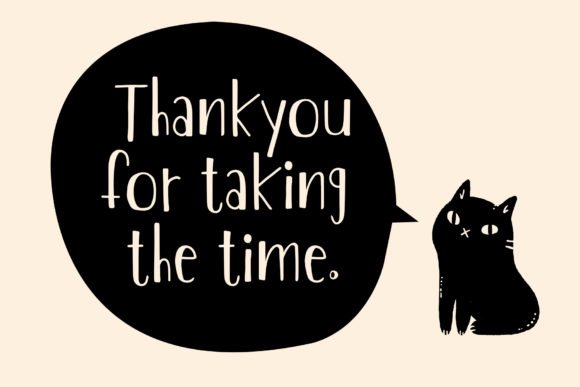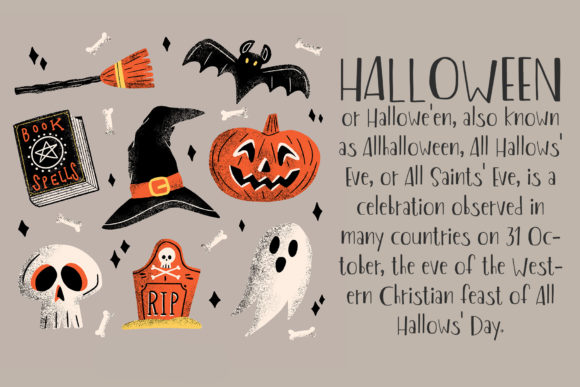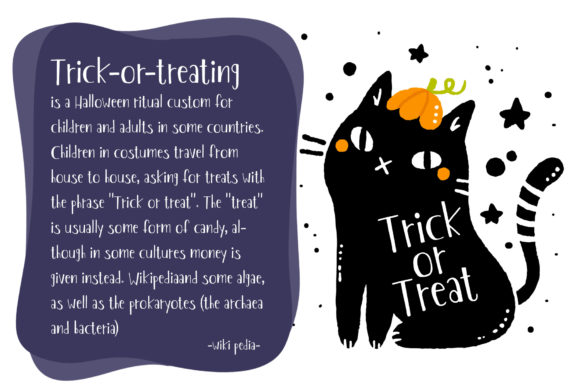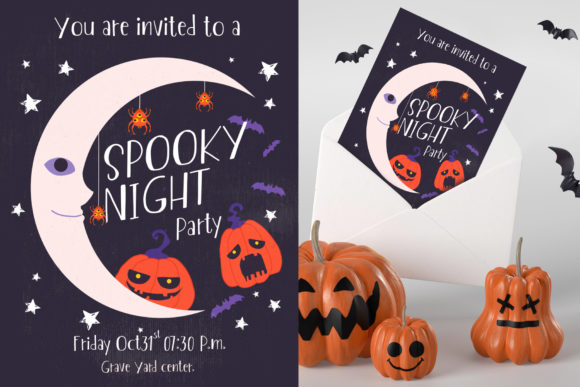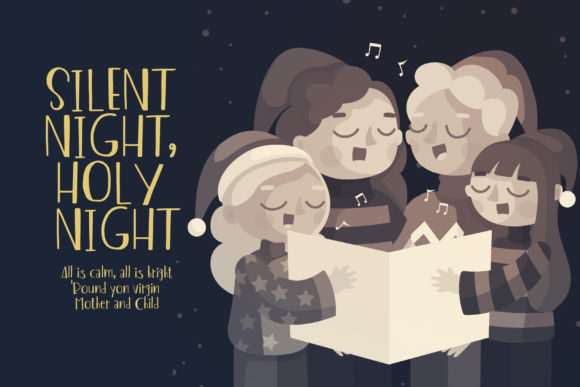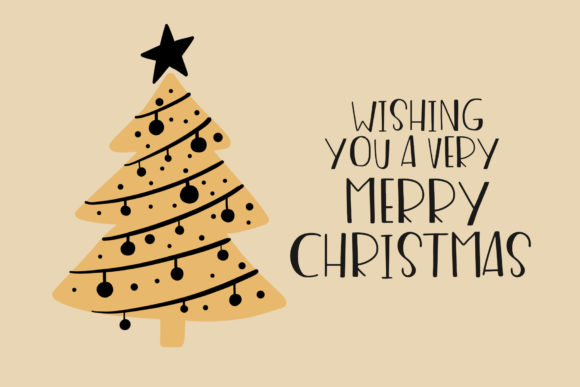
About The Chaplin Font
The Chaplin is a simple and neat handwritten font that boasts incredible versatility, making it a delightful choice for a wide range of design projects. Here are some features that make The Chaplin a standout font:
Clean and Neat Design: The font’s clean and tidy appearance gives it a polished and refined look. Its precise letterforms and smooth lines create a sense of order and elegance, making it perfect for projects where clarity is essential.
Handwritten Feel: The Chaplin retains the charm of handwritten lettering while maintaining a well-organized structure. This blend of authenticity and tidiness gives your text a friendly and approachable touch.
Versatility: The Chaplin’s adaptability makes it suitable for various design applications. Whether you’re crafting invitations, logos, social media posts, or any other creative project, The Chaplin can effortlessly complement your ideas.
Spectacular Designs: Despite its simplicity, The Chaplin has the power to elevate your designs to new heights. Its understated elegance and versatility ensure that your creations stand out and leave a lasting impression.
Perfect for Subheadings: The font’s straightforward style makes it an excellent choice for subheadings and captions. It enhances readability and complements the overall aesthetic of your design.
Embrace the versatility and clean charm of The Chaplin font to infuse your projects with an elegant and approachable vibe. From professional presentations to creative endeavors, The Chaplin is here to enhance your designs and create spectacular results!